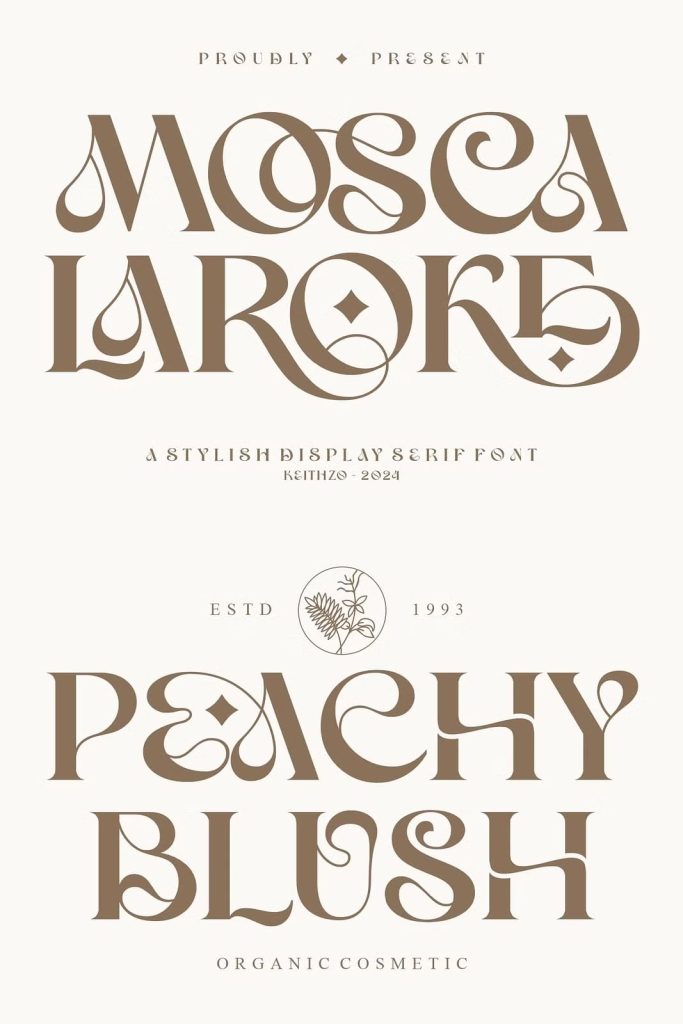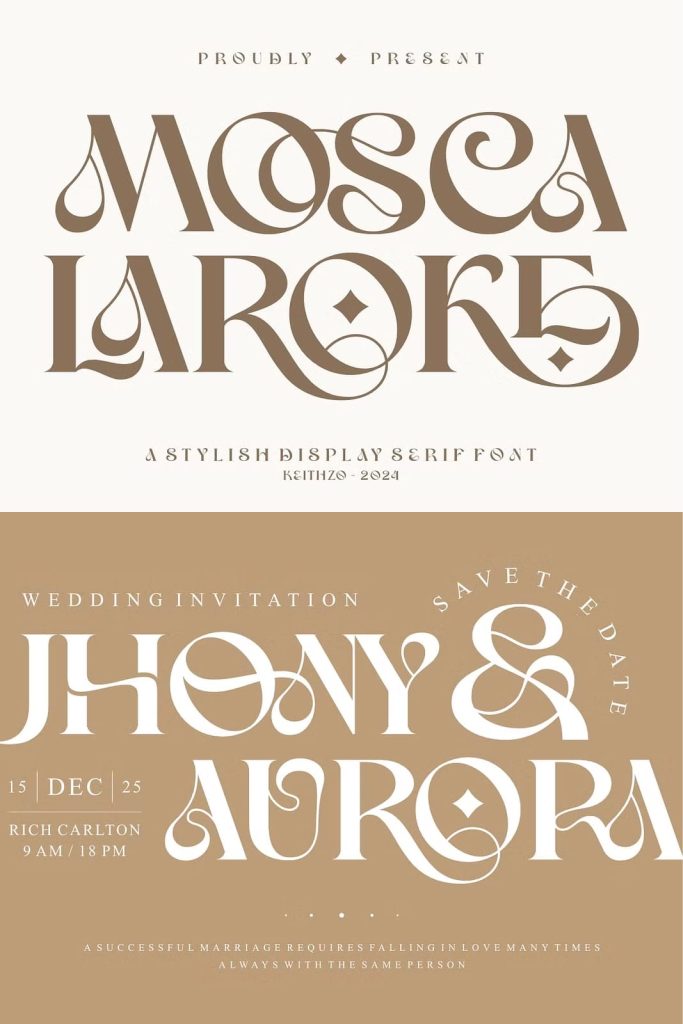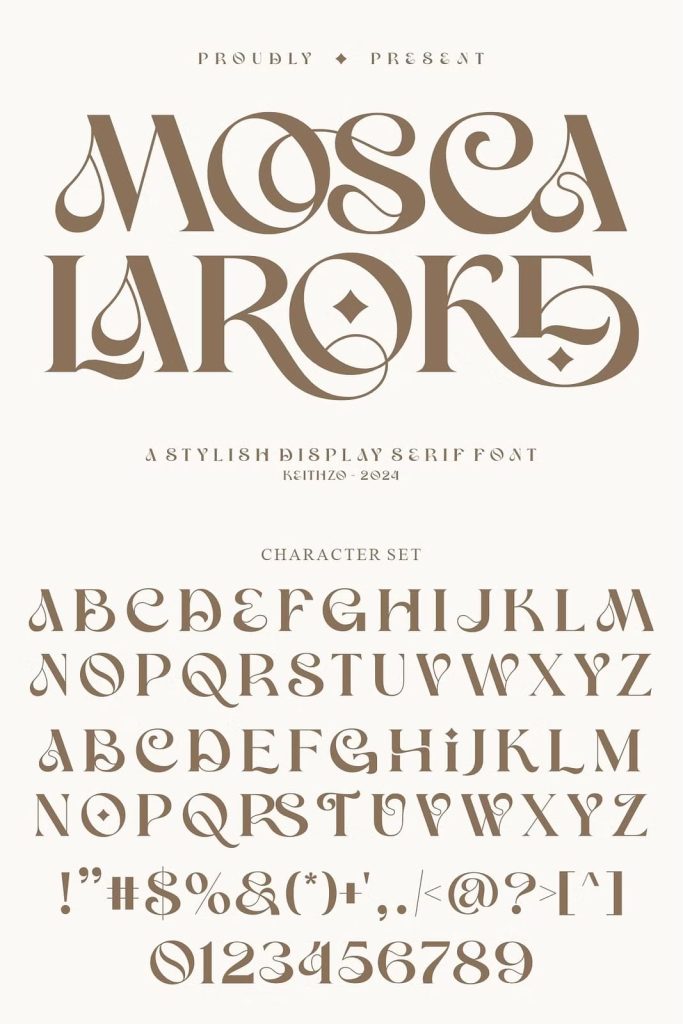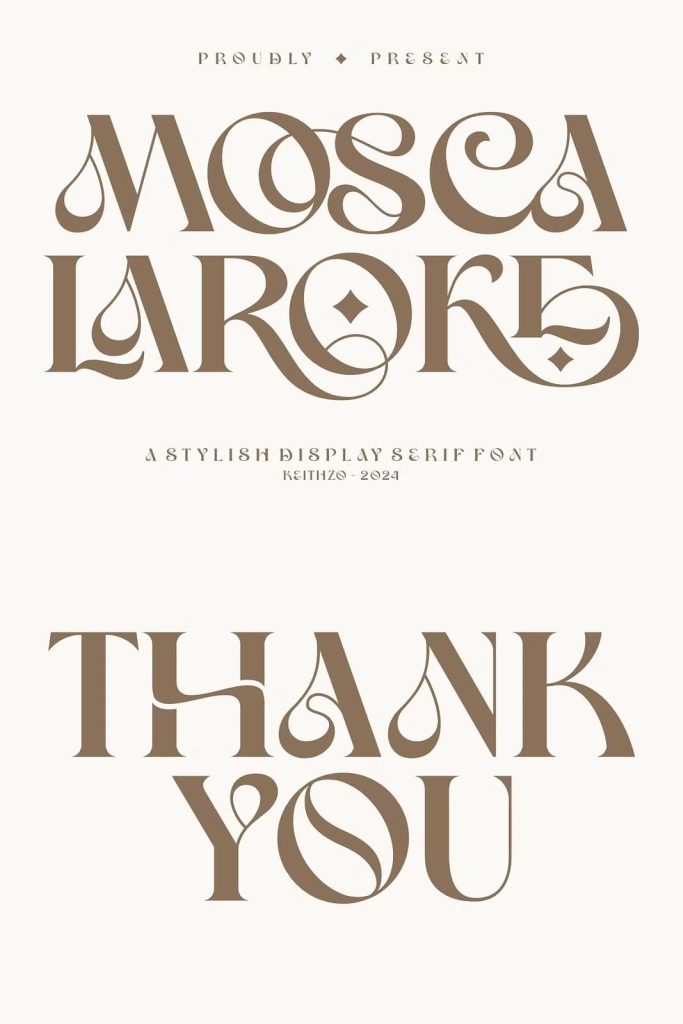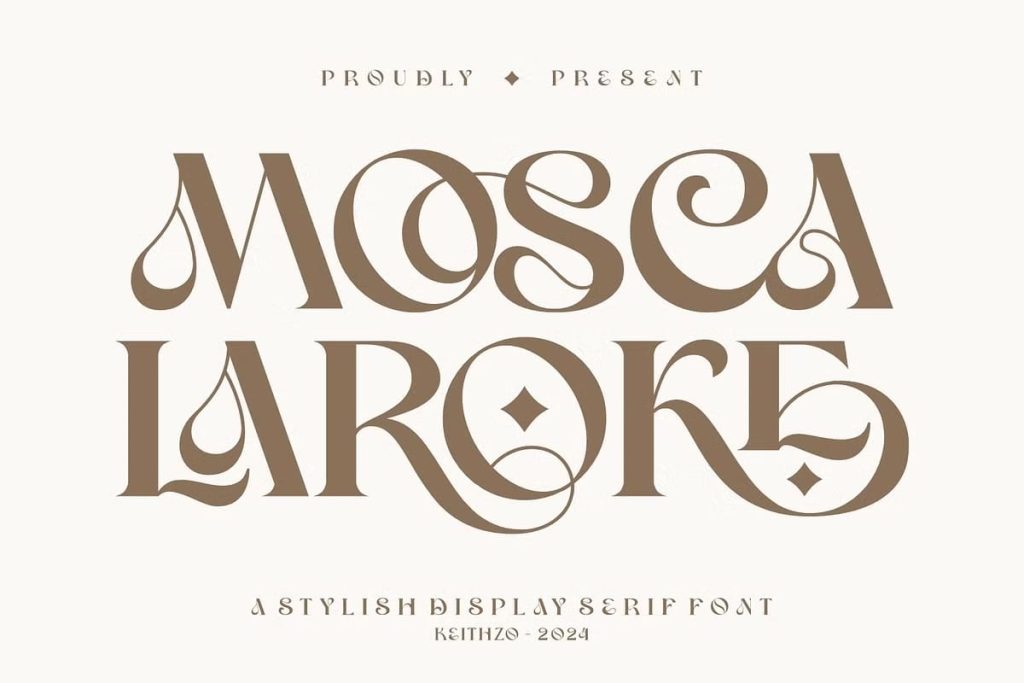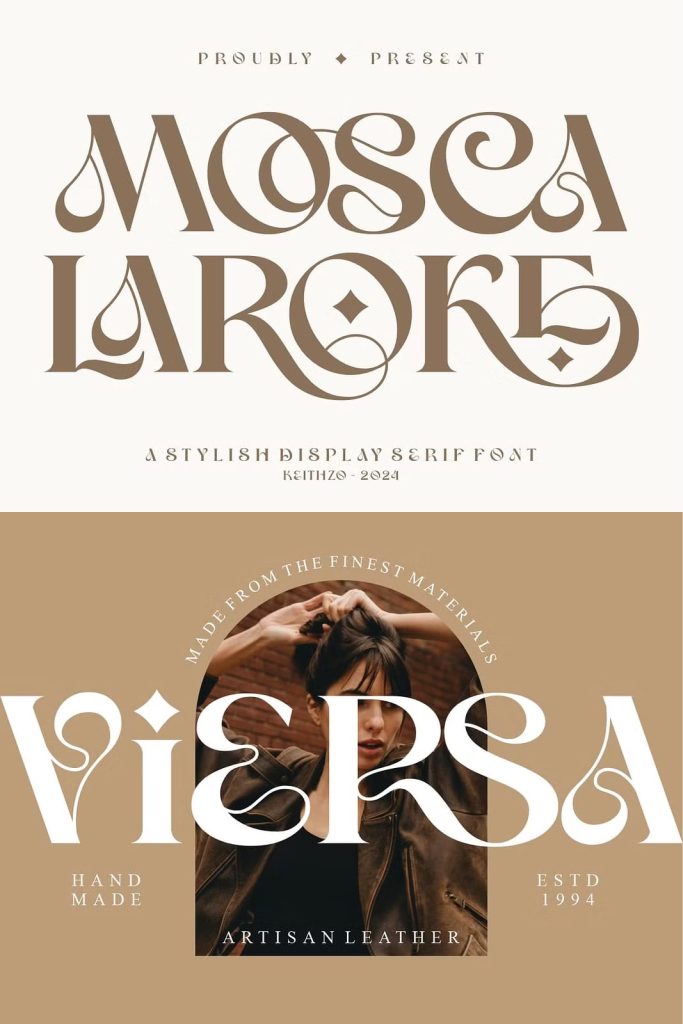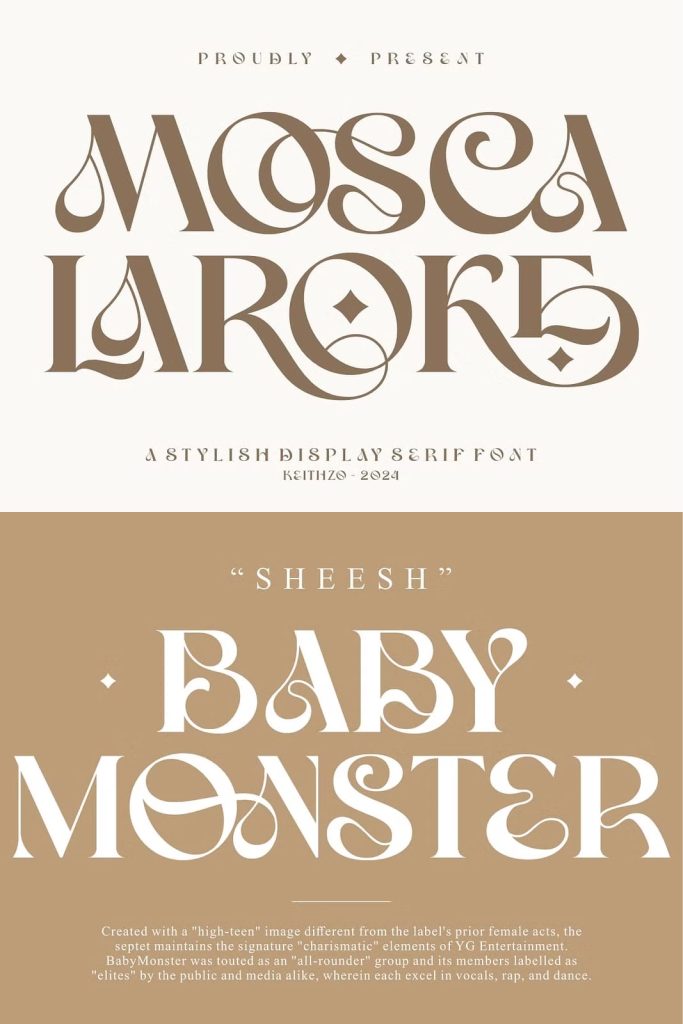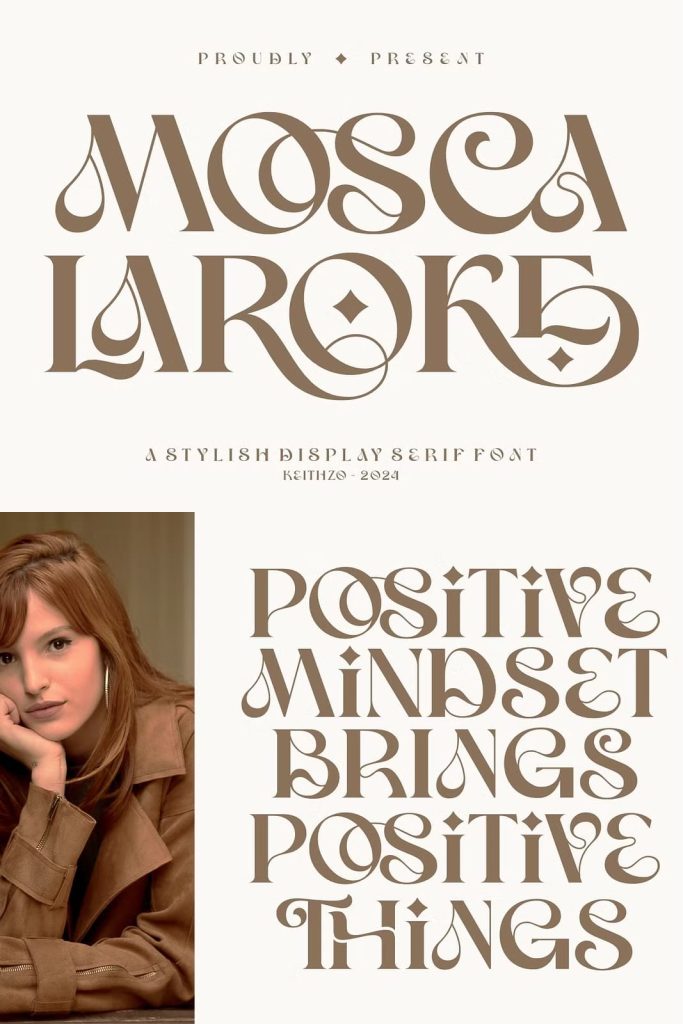
Mosca Laroke Font is a stylish display serif font with unique look that is perfect for multipurpose projects. Mosca Laroke Font inspired by the concept of romantic vibes and made it into a modern yet luxury style.
This font is also looks elegant and will fit well in any design and very recommended for logo, crafts, posters, books, branding, quotes, print templates, packaging, invitations, product labels, advertising, wedding project and more. This font comes in uppercase, lowercase, with punctuation, symbols, numerals, and ligatures. This font is PUA encoded which means you can access all of the charming glyphs and swashes with Character Map